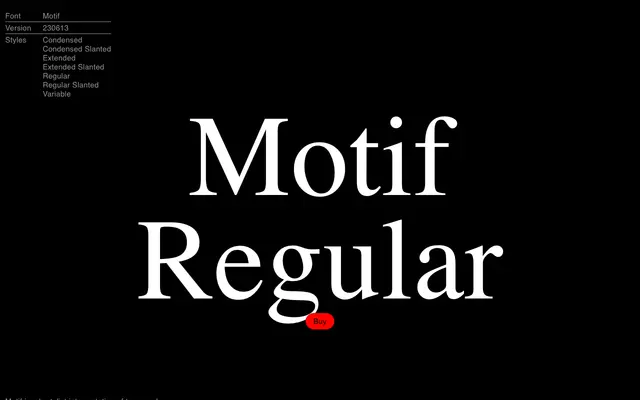
Motif
EPI · 2023
A variable display typeface drawing on the graphic language of petrol stations, car advertisements and racecar livery.
Motif takes its cues from mid-century automotive lettering, the kind found on gas station signage, racing numbers and period car ads, and renders it through a brutalist lens. The variable font spans a width axis from compressed to expanded, with named styles at Condensed, Regular and Extended, each with a slanted companion. Character support covers Latin Extended with a range of OpenType features including alternate figures, discretionary ligatures and stylistic sets.
Described explicitly as a brutalist interpretation of automotive typography from gas stations, car ads and racecar decoration, placing it firmly in display territory with an expressive, referential character.